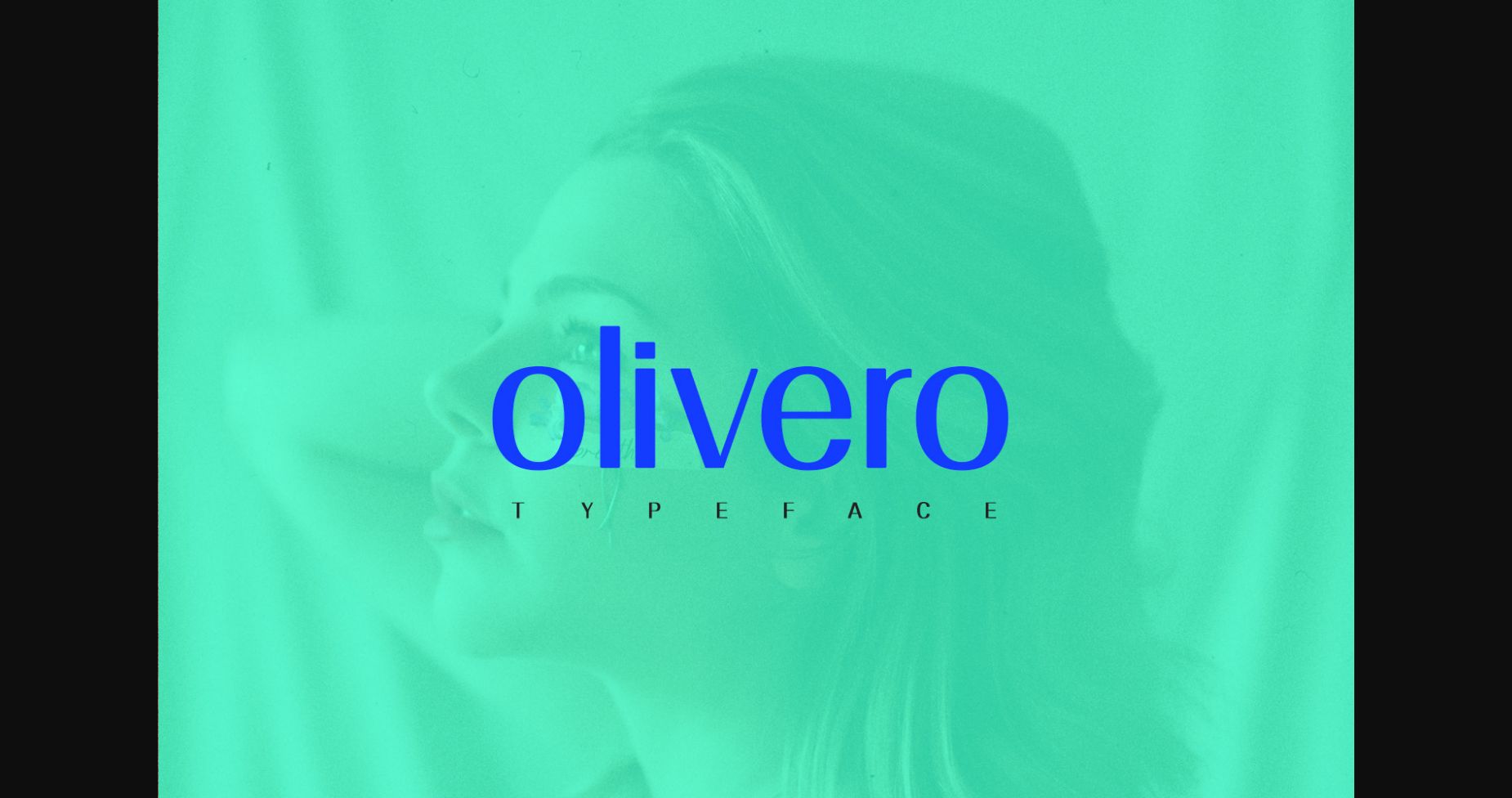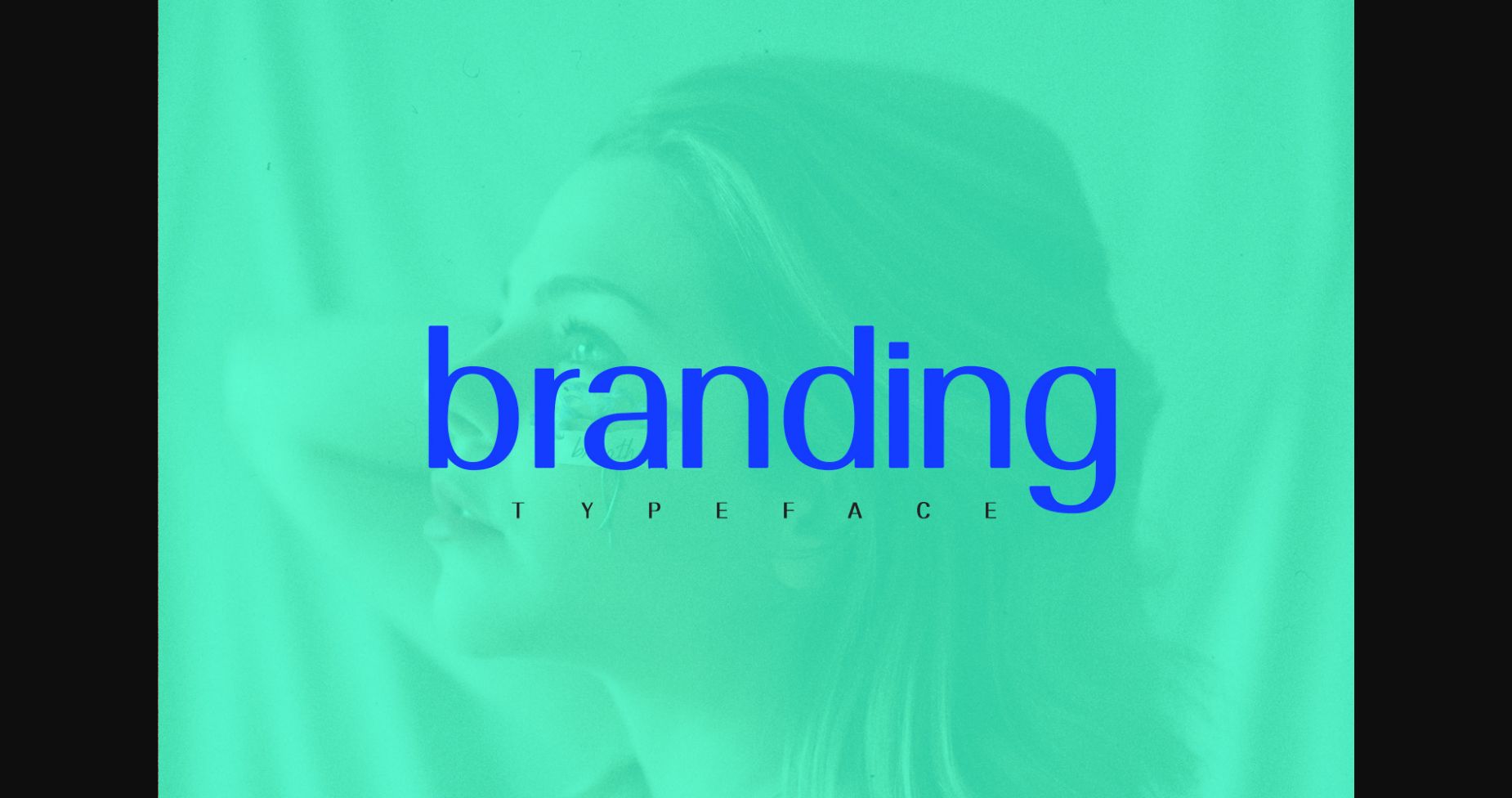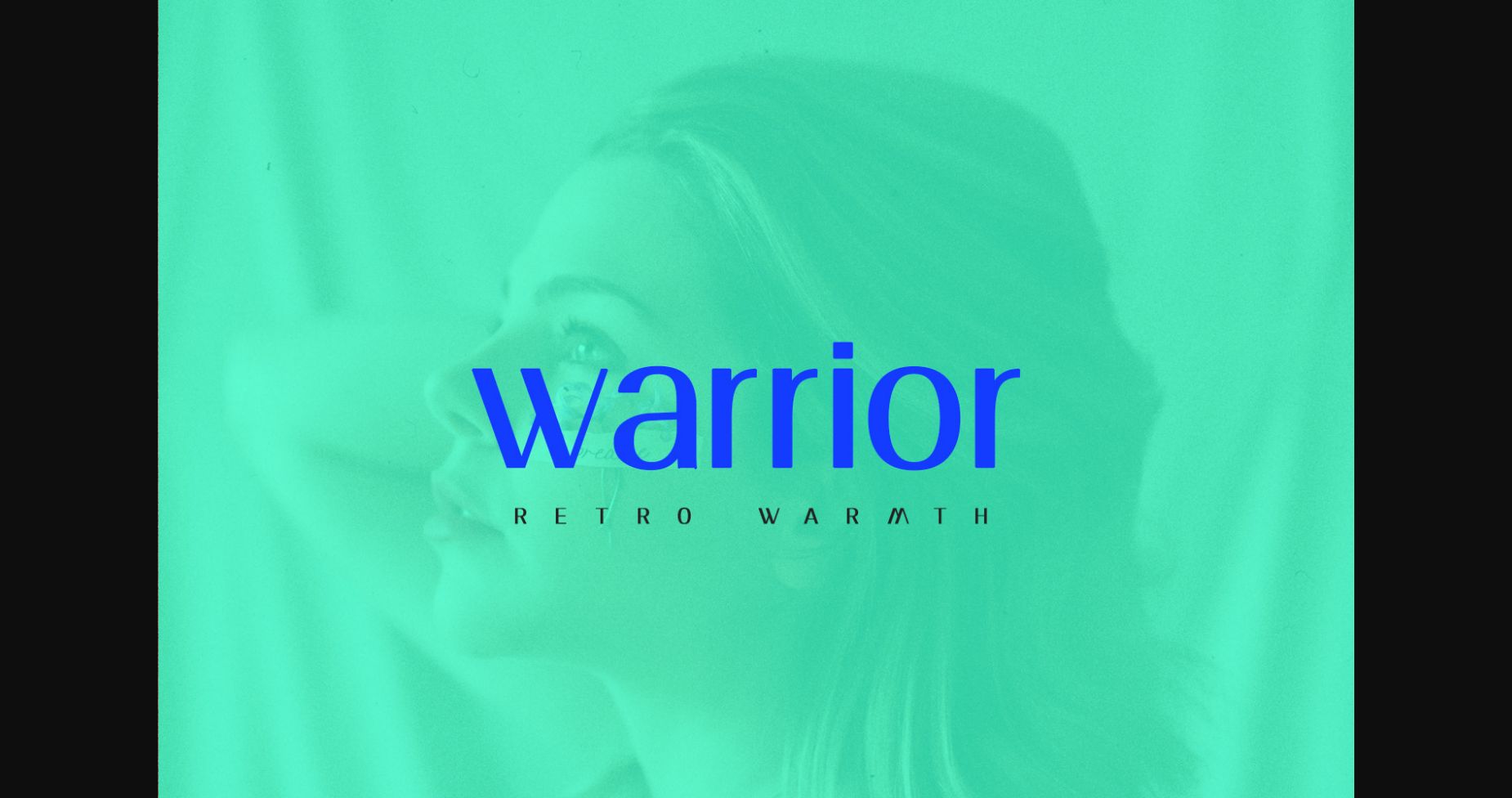
About Olivero Font
Olivero is a minimal sans serif font. Simple and easy to use, this font will be very beautiful if you mix it with your various craft designs.